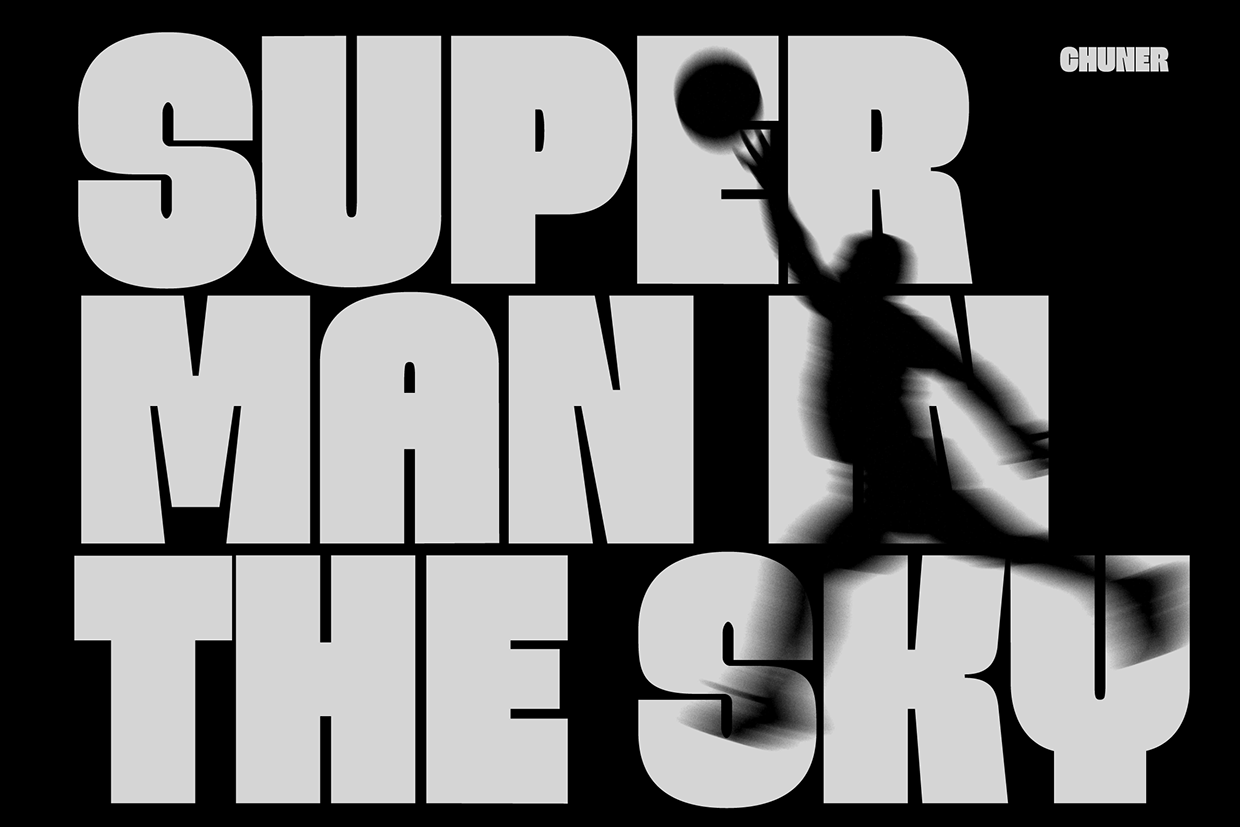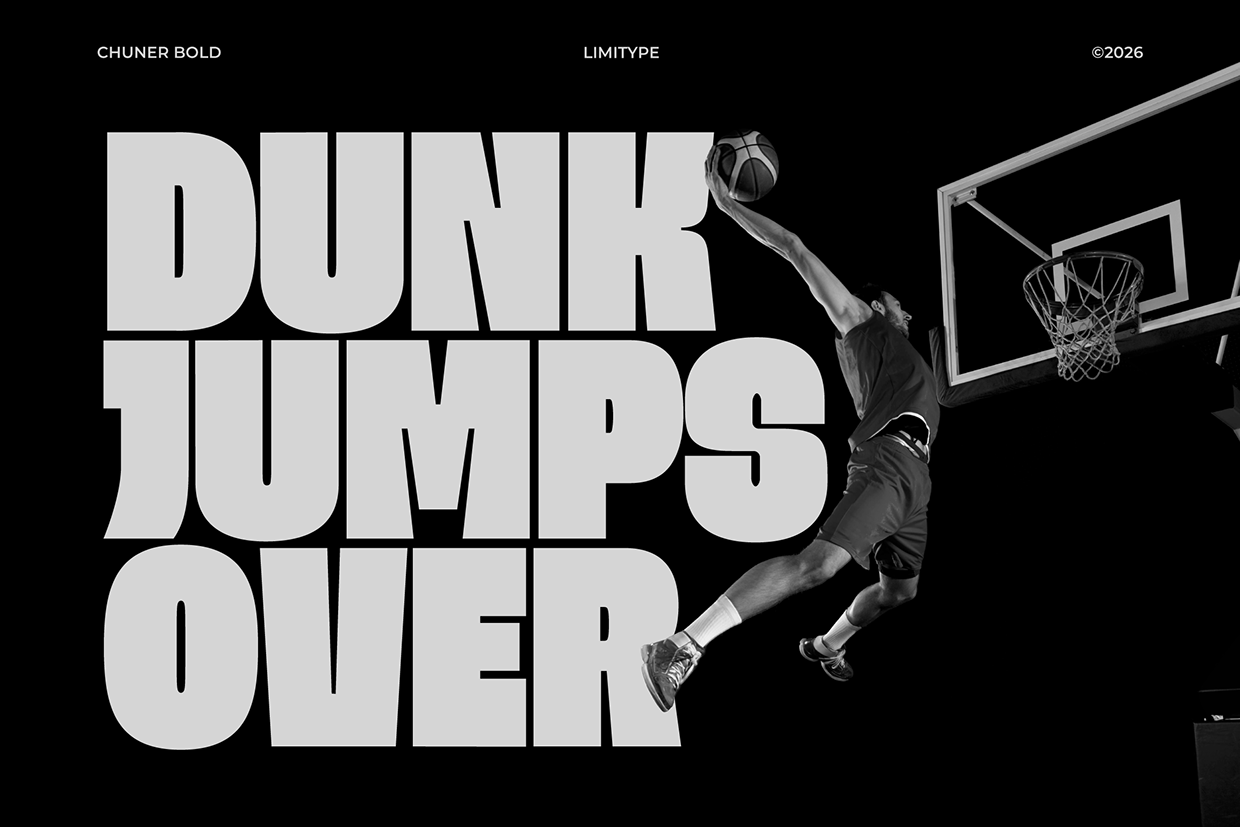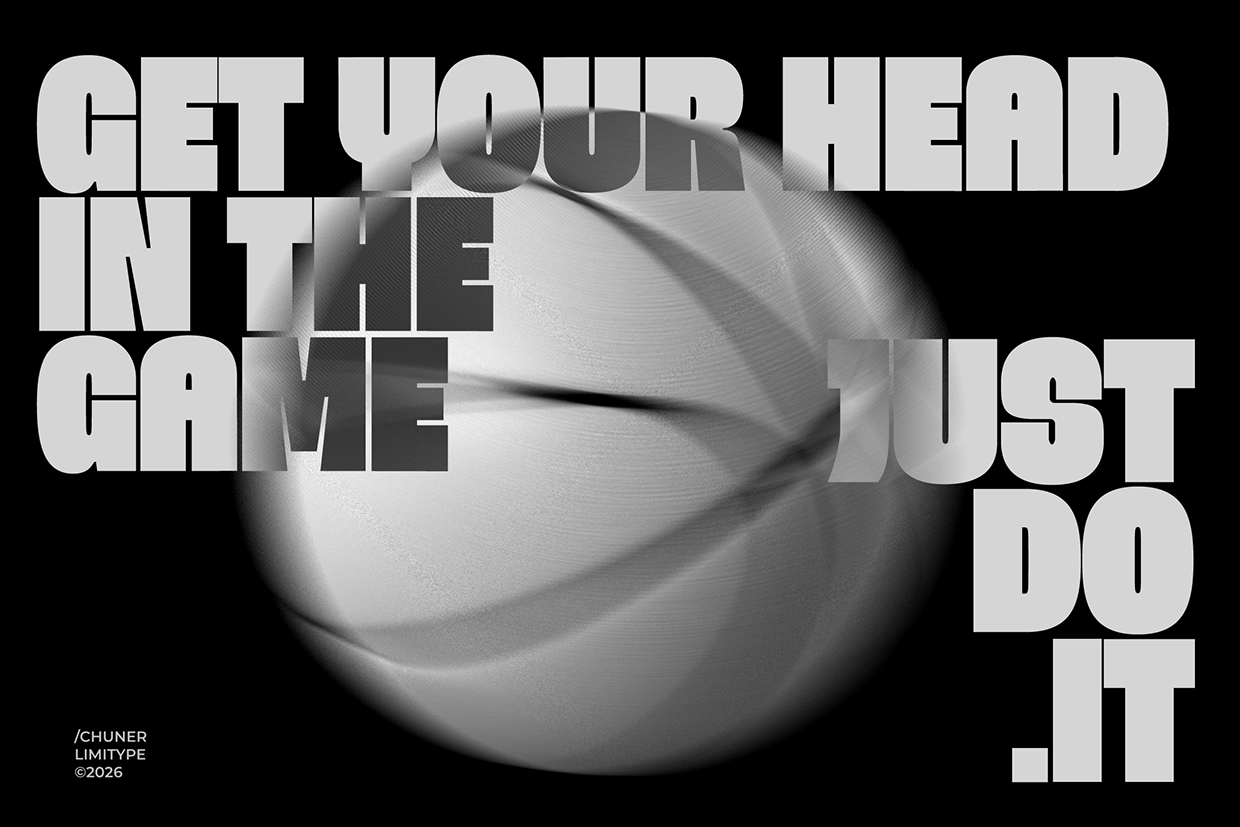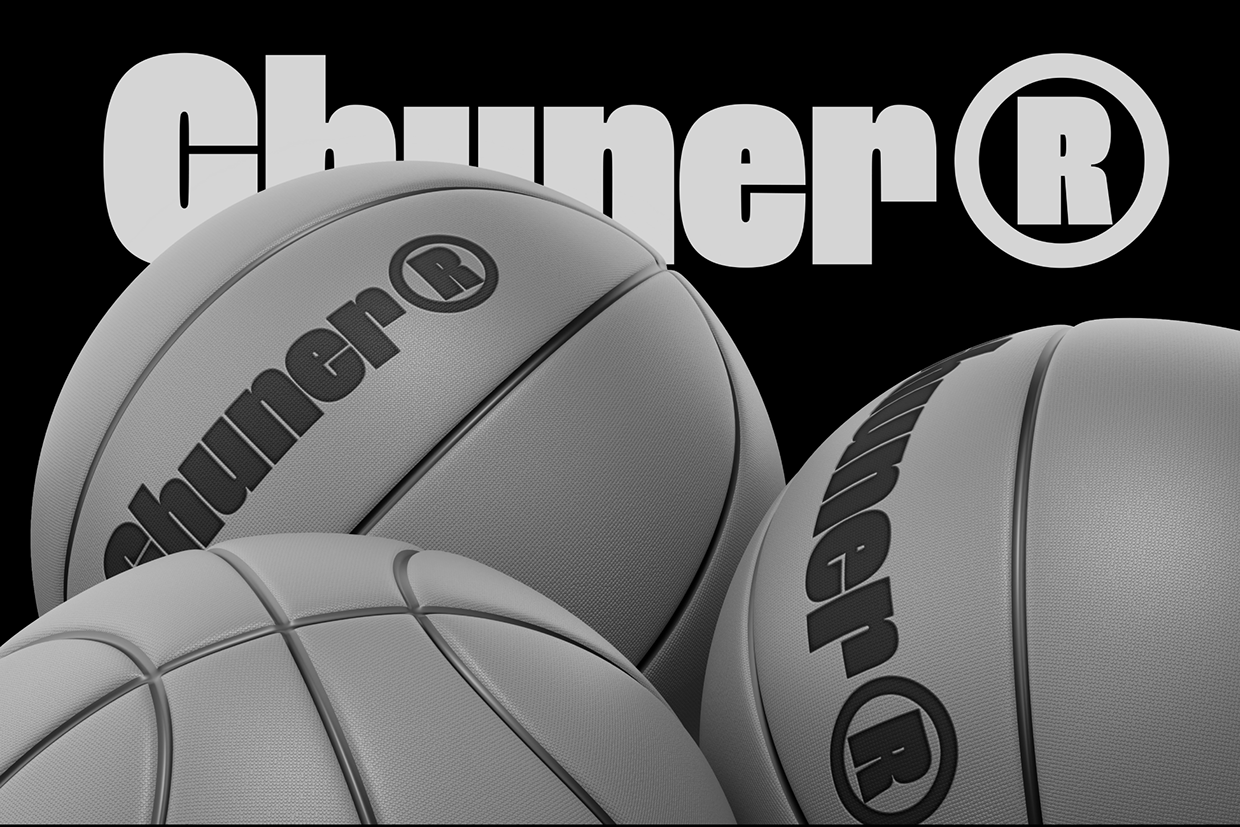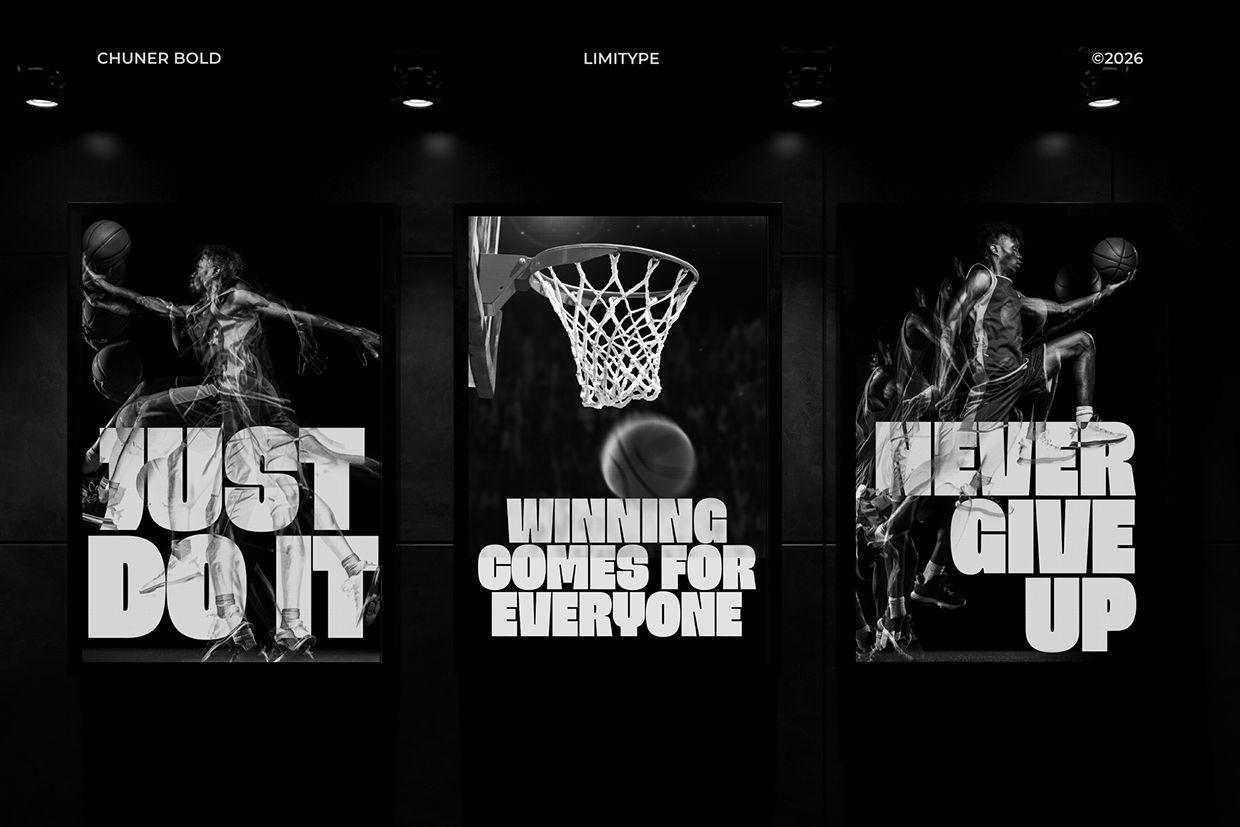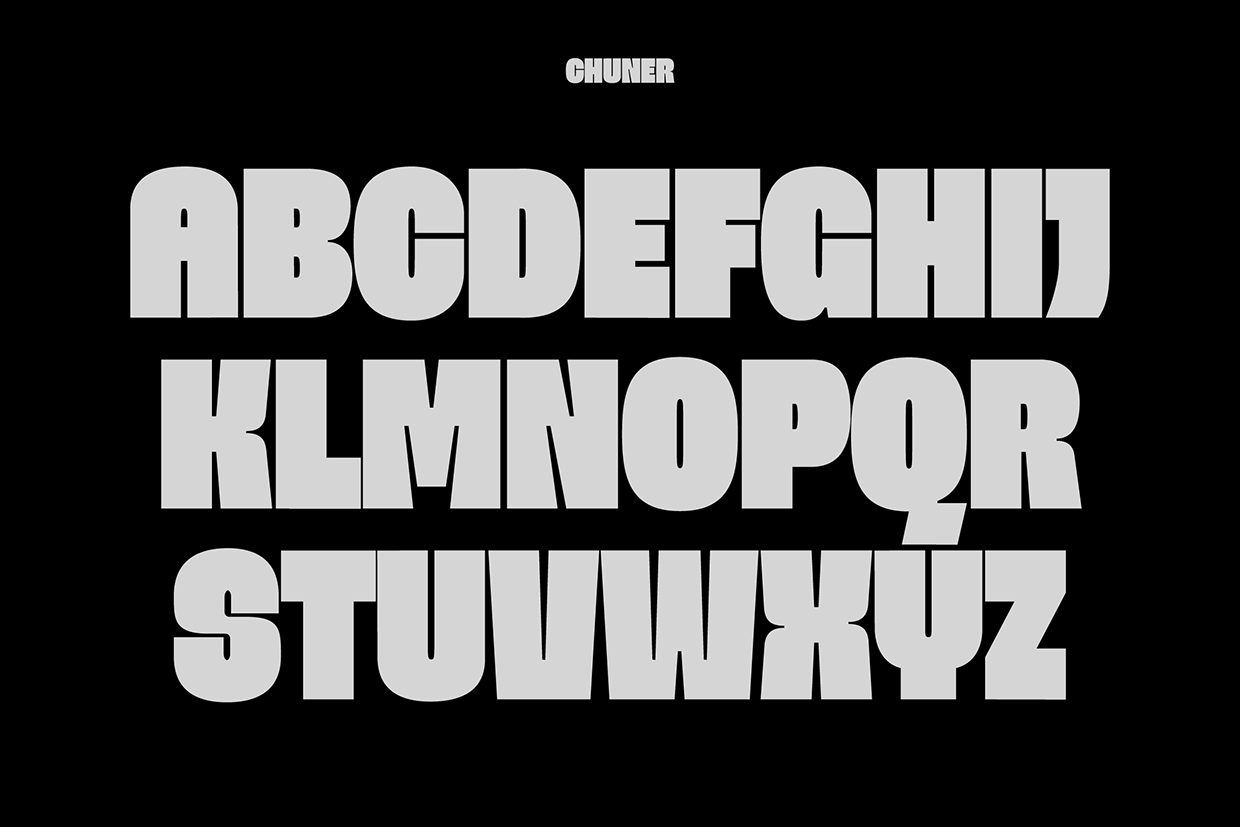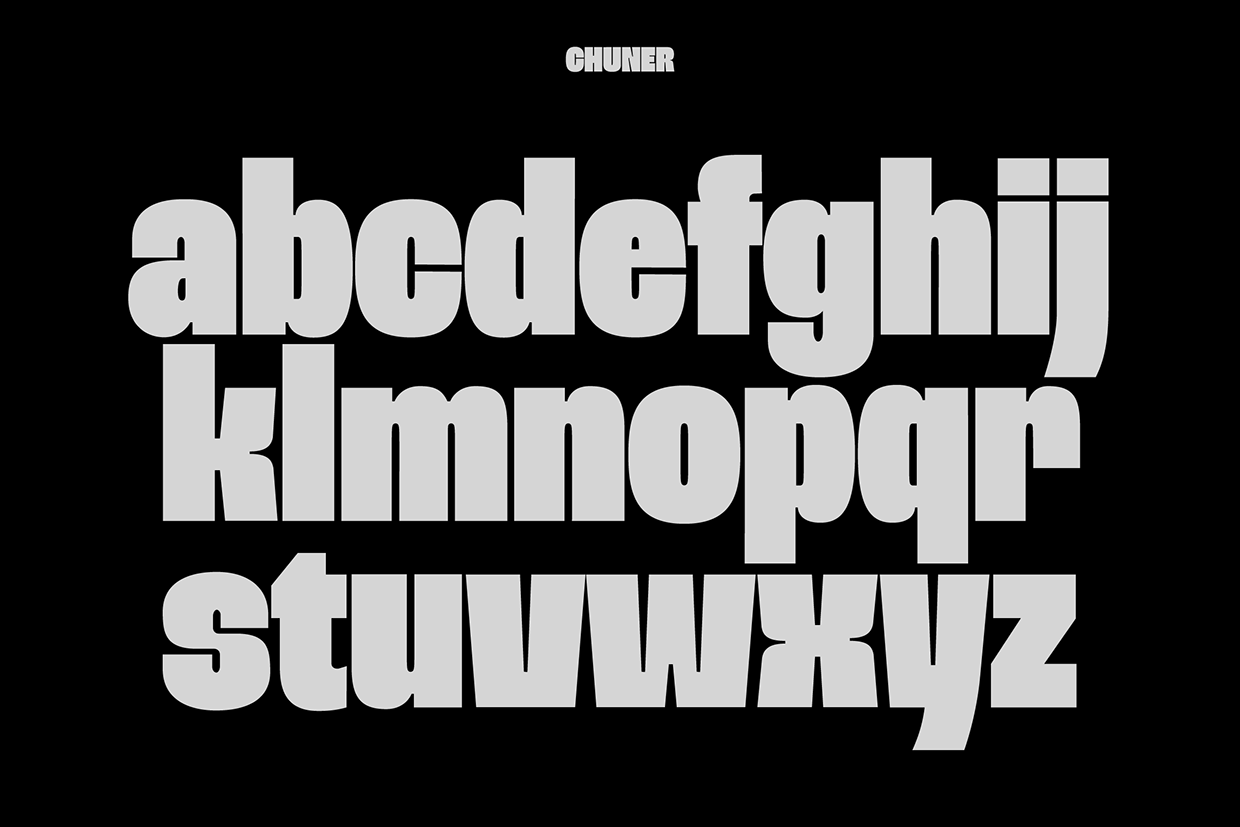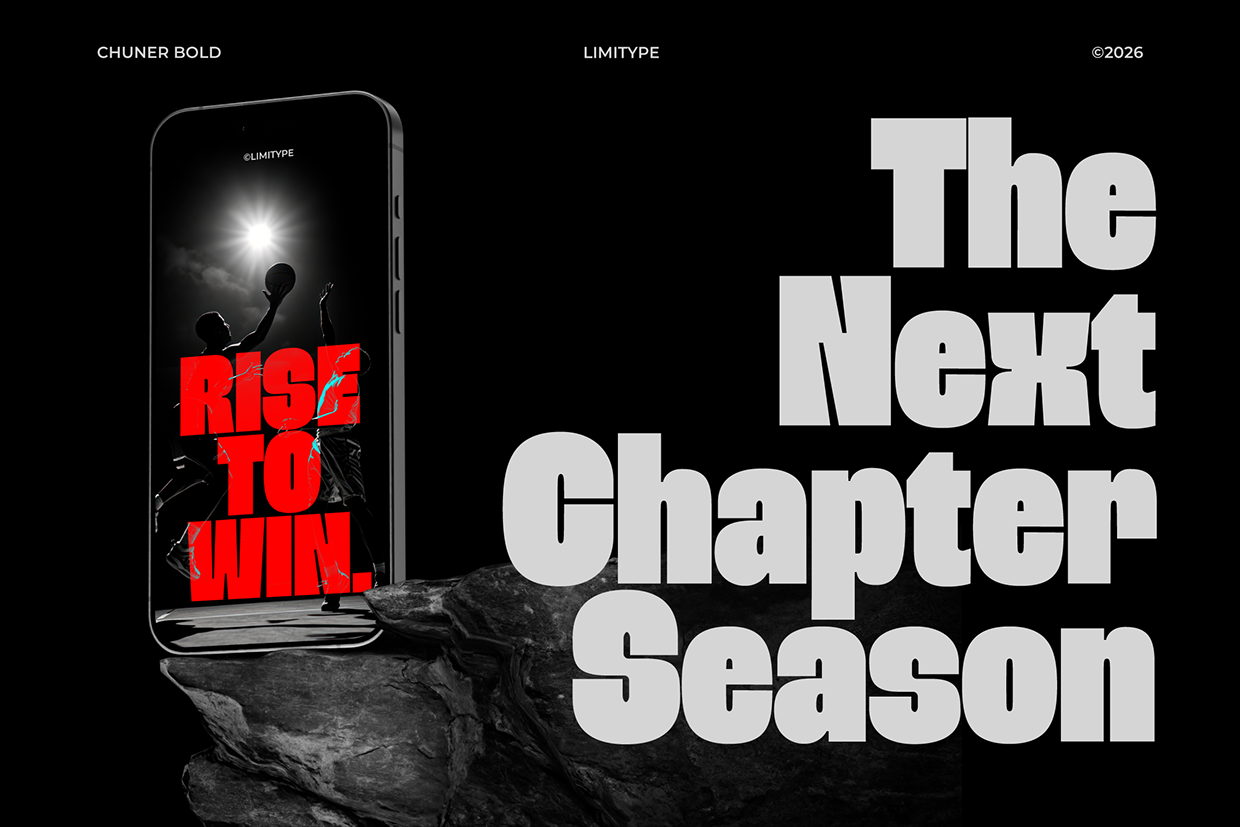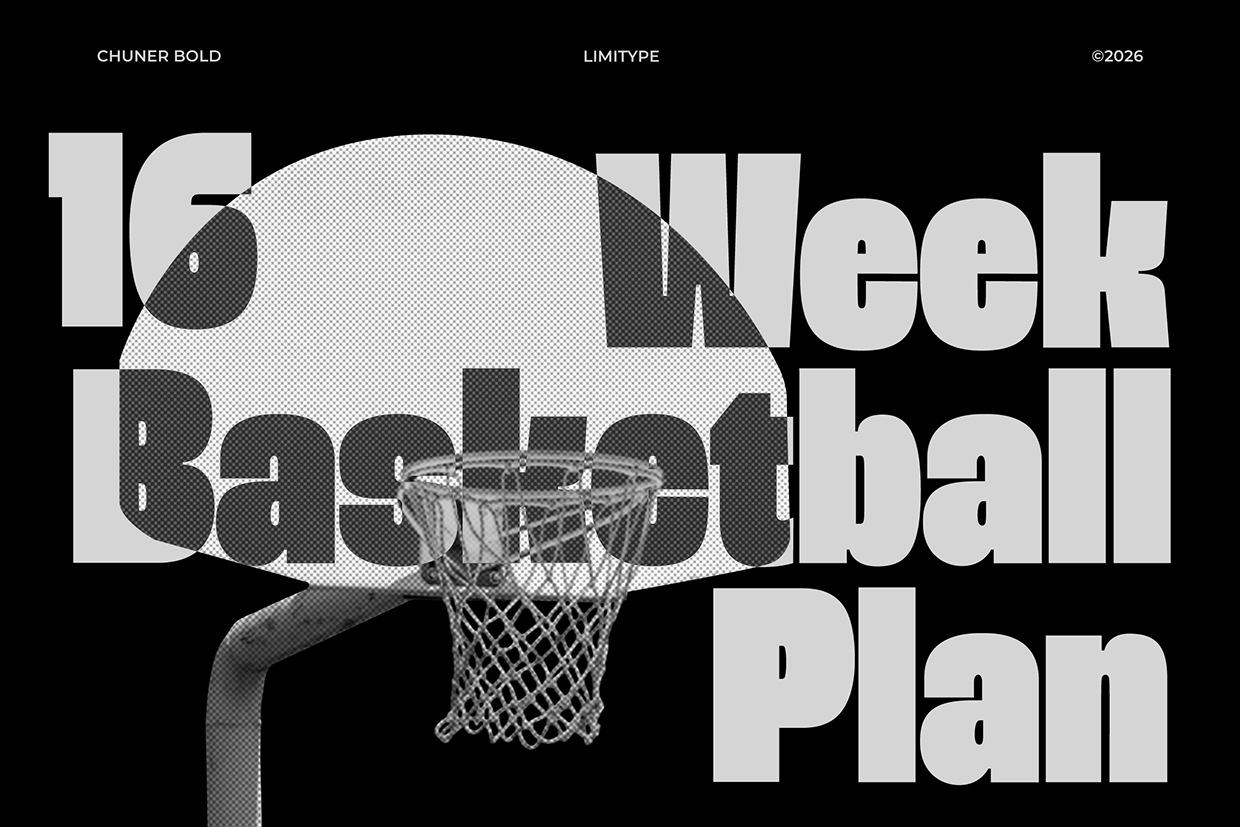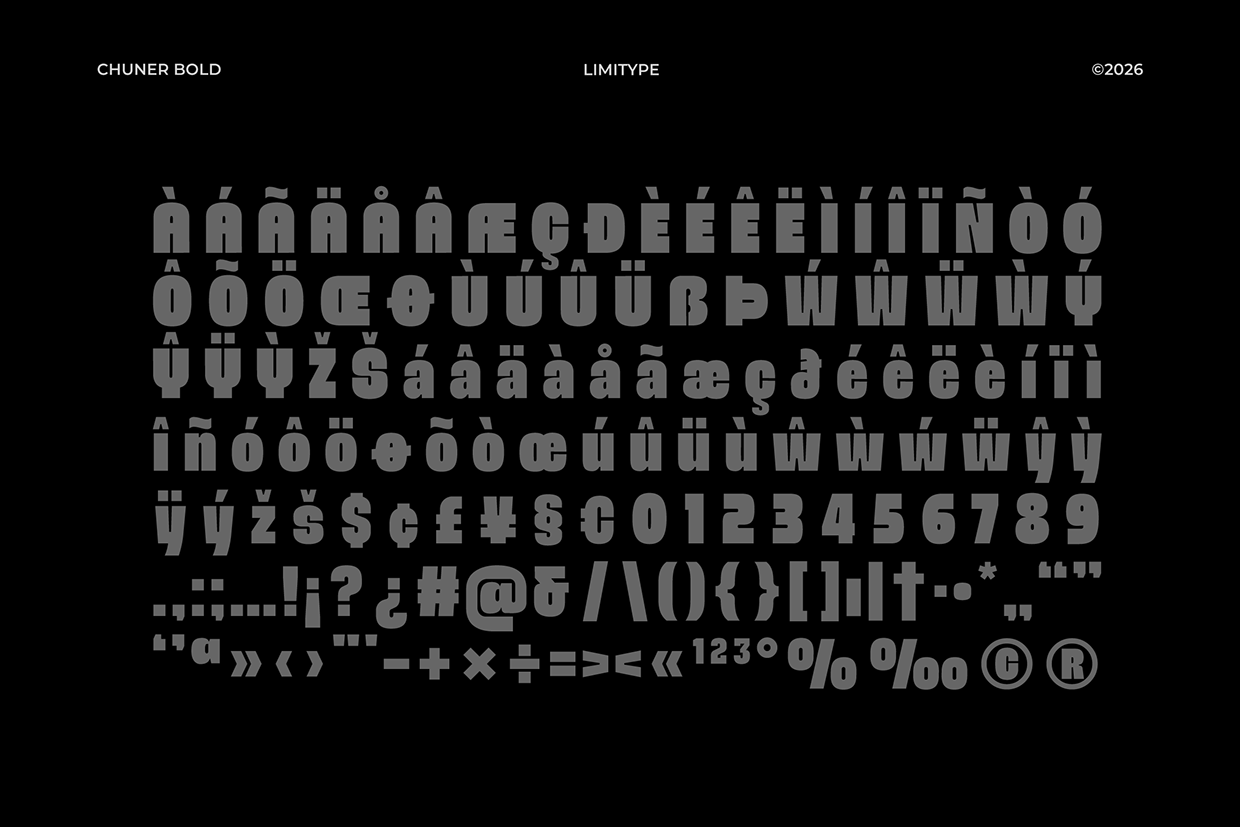
Chuner - Bold Font
Chuner is a bold font with a sporty style designed to create a strong, dynamic, and energetic visual appearance. Its firm and modern character makes it highly suitable for design needs such as branding, logos, posters, and digital content that aims to stand out and look powerful. Chuner delivers a strong and competitive sporty impression, making it an ideal choice for designs that require high impact and aggressive visual appeal.